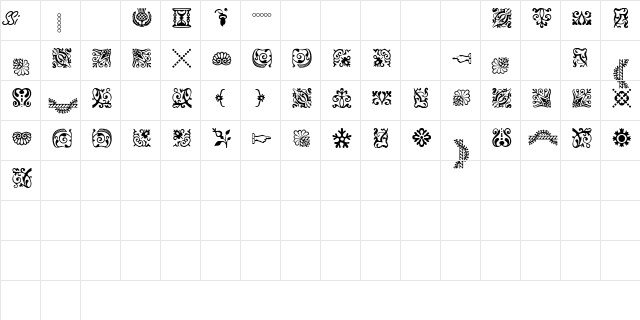
CaslonOrnamentsSSK Regular
Design Context for CaslonOrnamentsSSK Typeface
CaslonOrnamentsSSK is built around its visual character rather than neutral utility — its distinctive forms are designed to make an impression at display sizes.